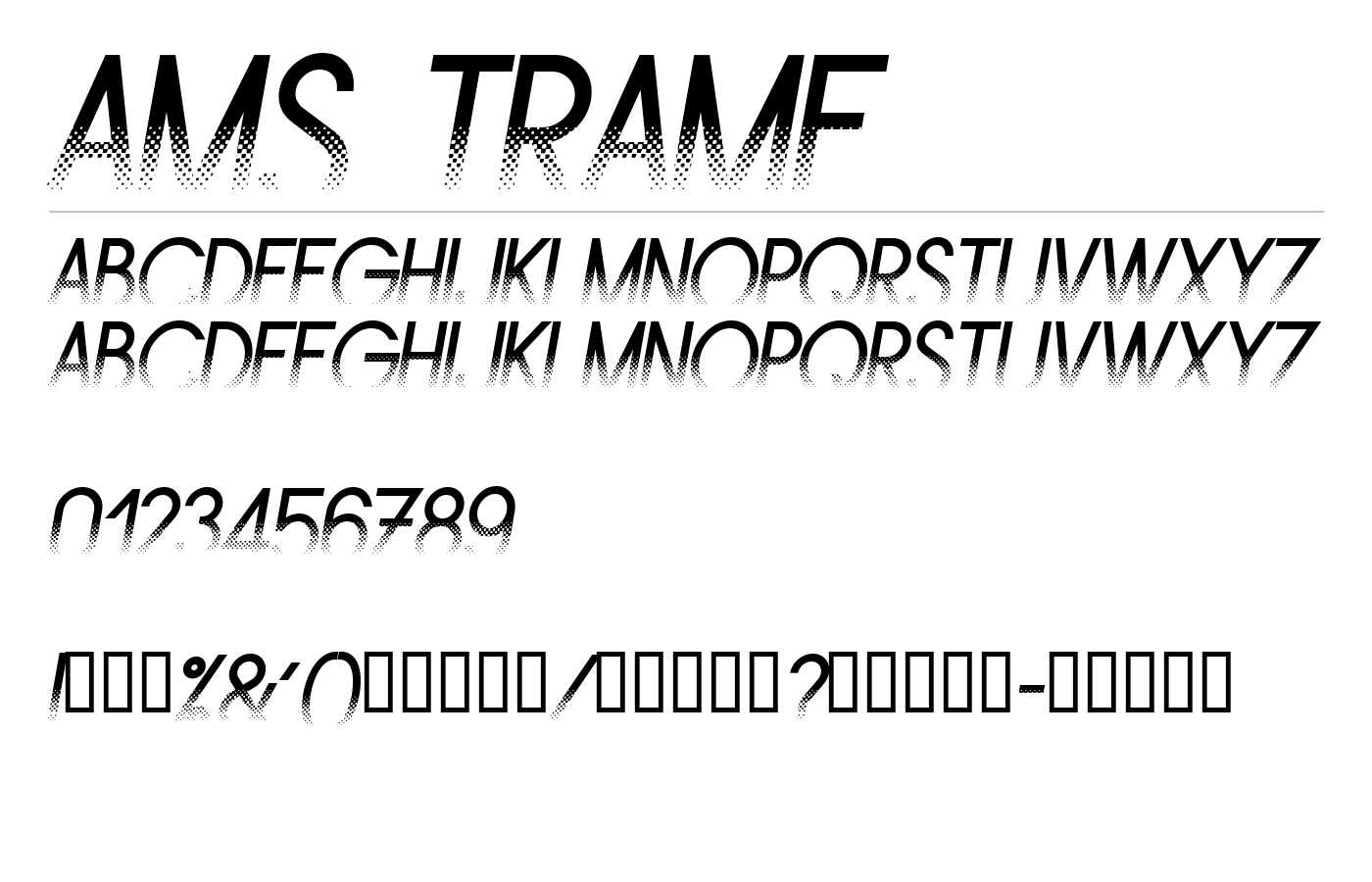
Ams Trame is a dynamic sans serif font featuring a slender, italicized design with a striking gradient dot fade that adds a sense of movement and modernity. Its narrow, clean letterforms and high contrast between solid and fading areas make it ideal for eye-catching headlines, branding, and contemporary editorial use where a futuristic and edgy vibe is desired. This font works best in display contexts that benefit from its unique visual texture and energetic style.
Ams Trame Font